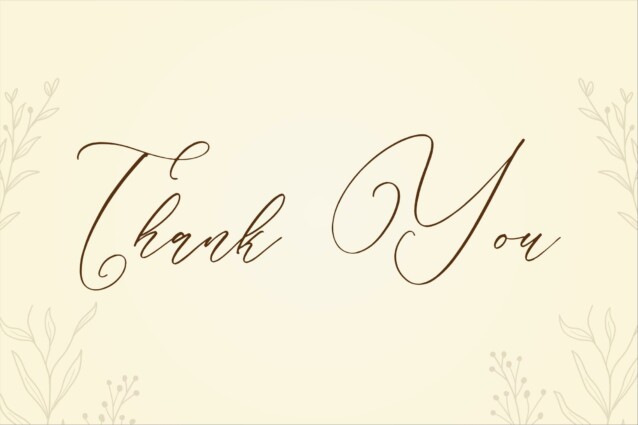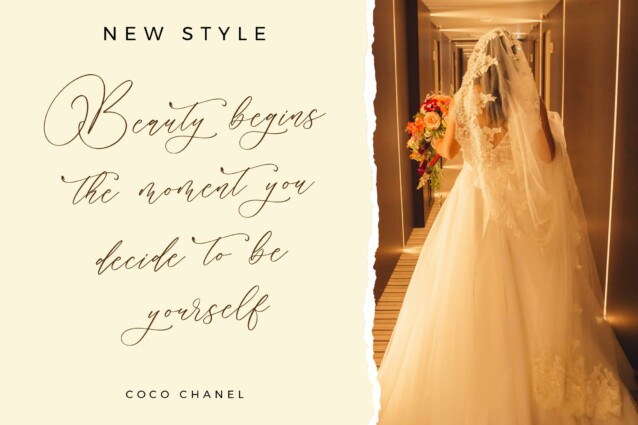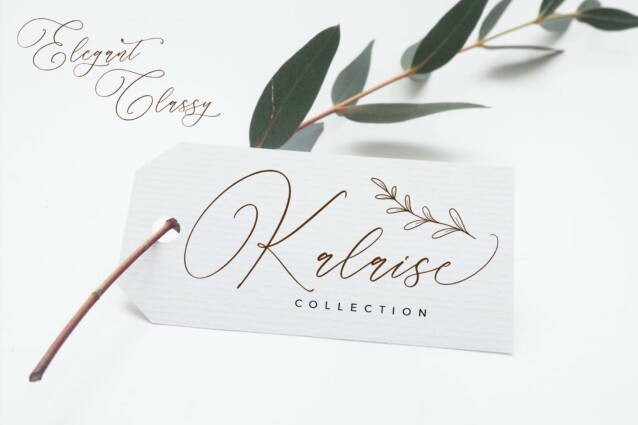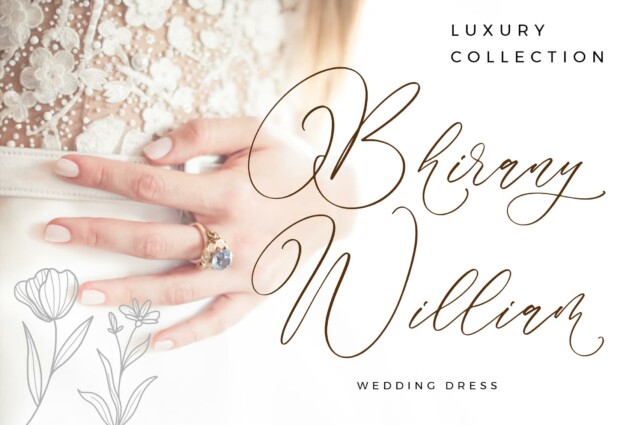
Parmidass Elarista Font is a luxury script that has own unique style & modern look. This typeface is perfect for an elegant & luxury logo, book or movie title design, fashion brand, magazine, clothes, lettering, quotes, and so much more.